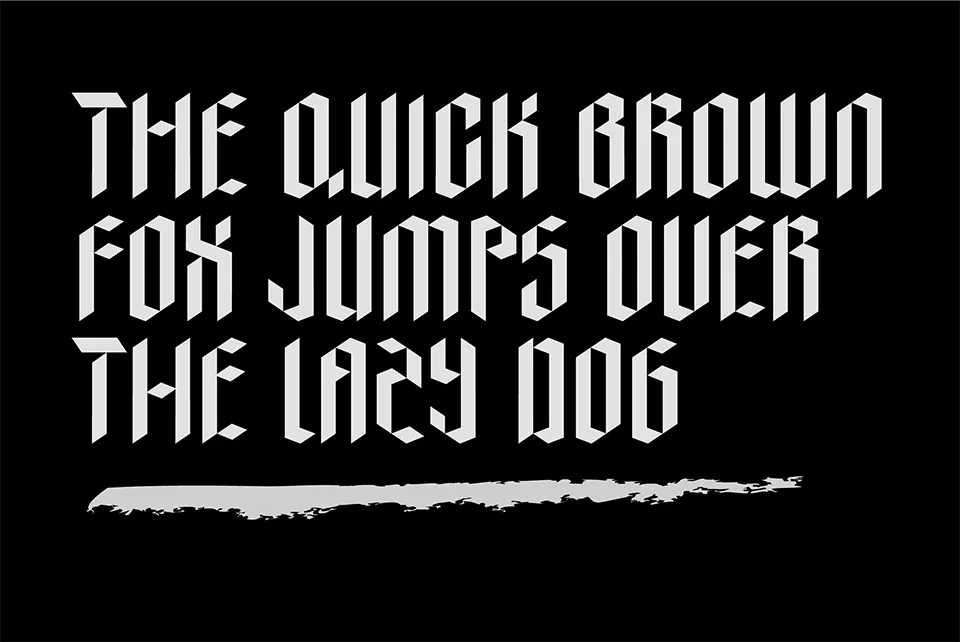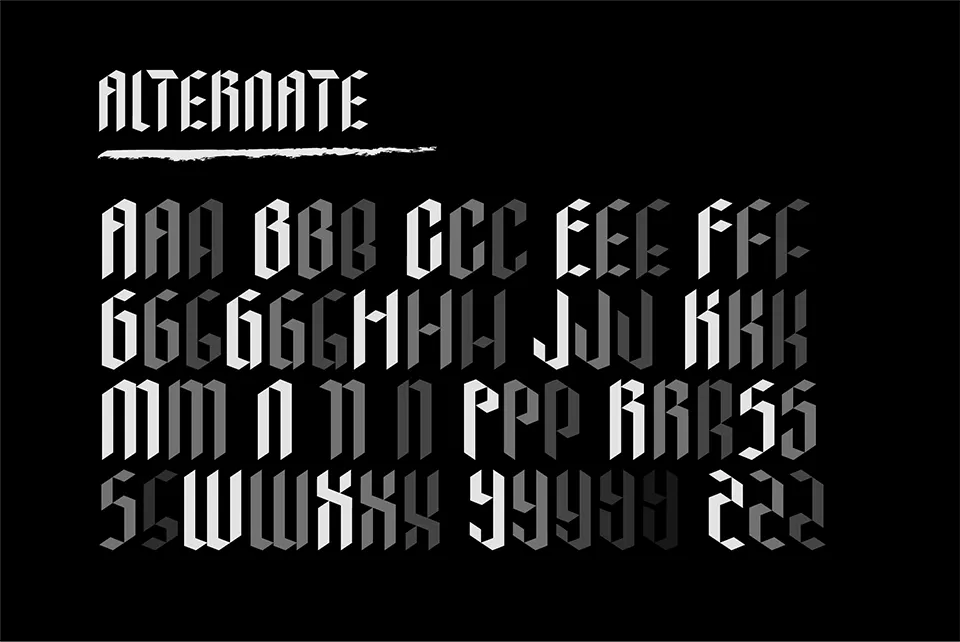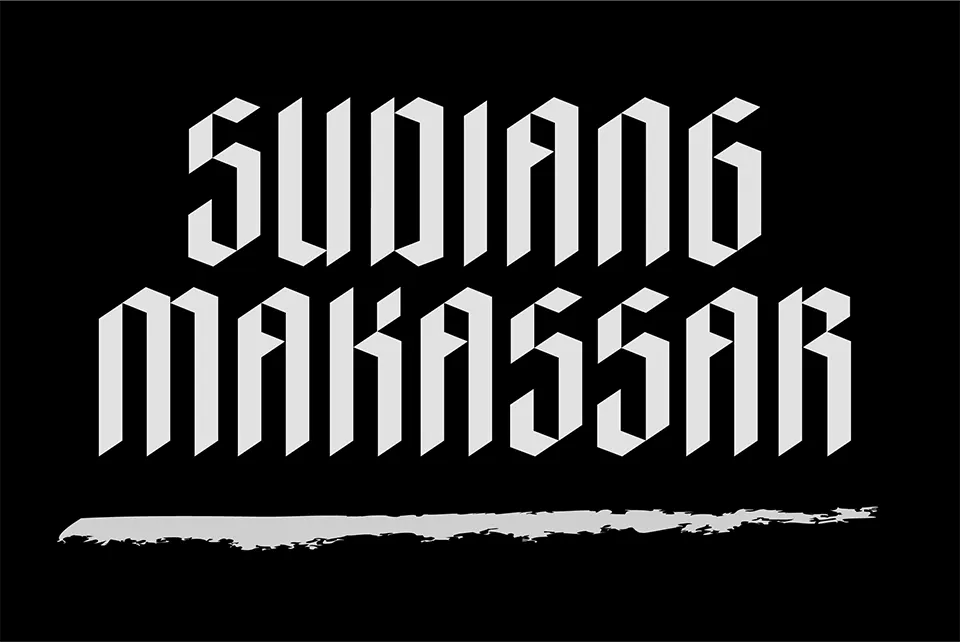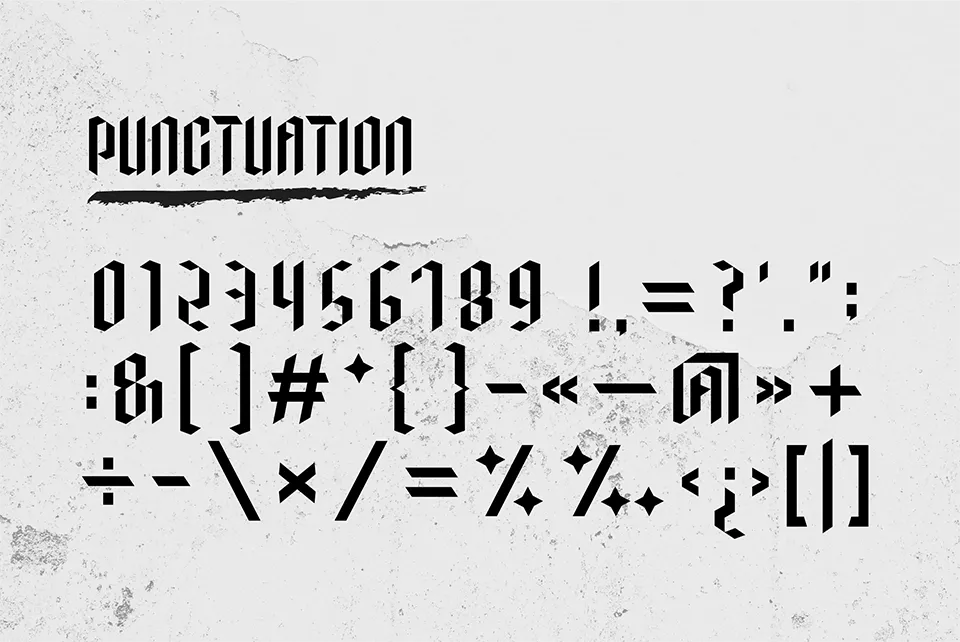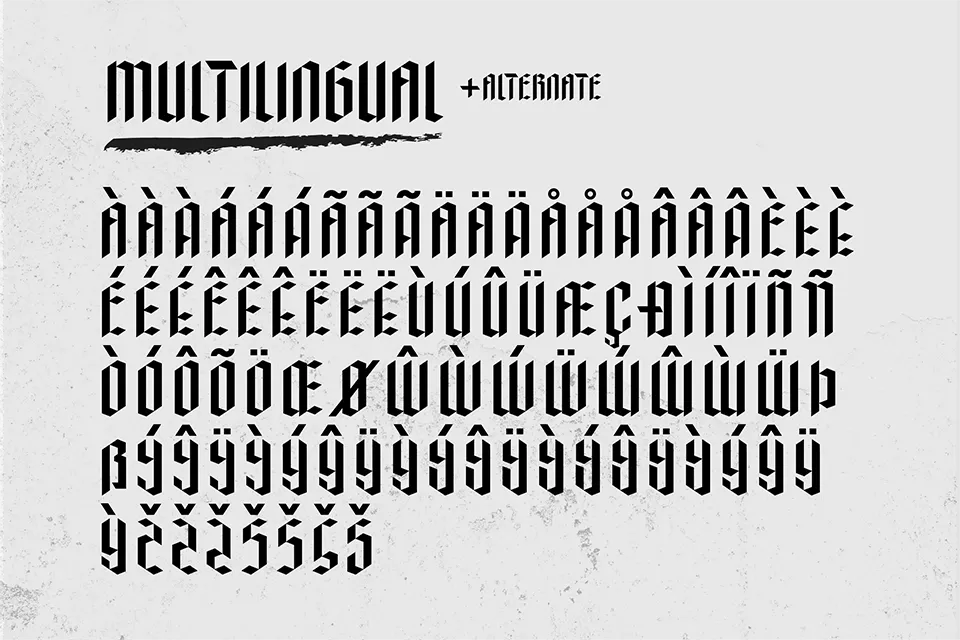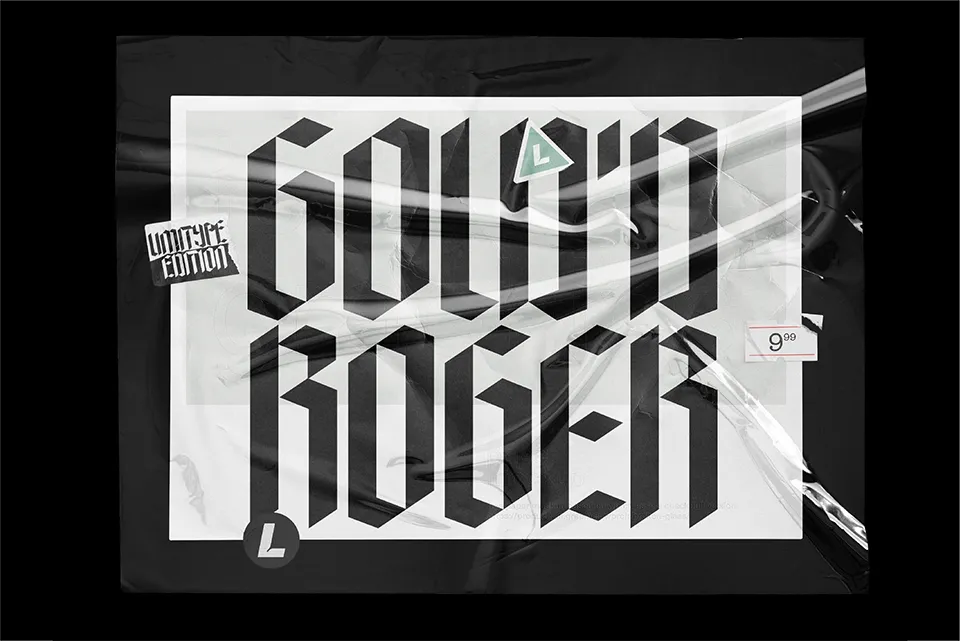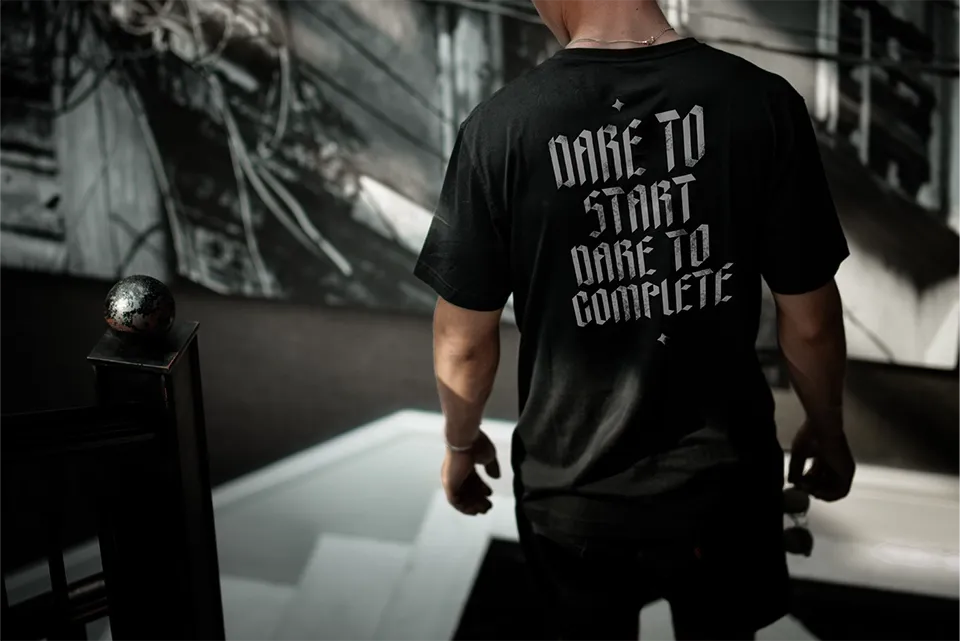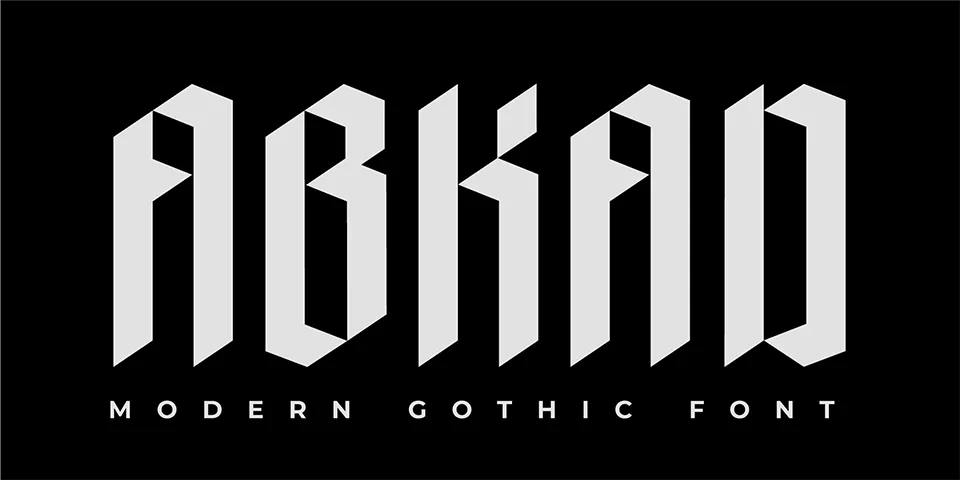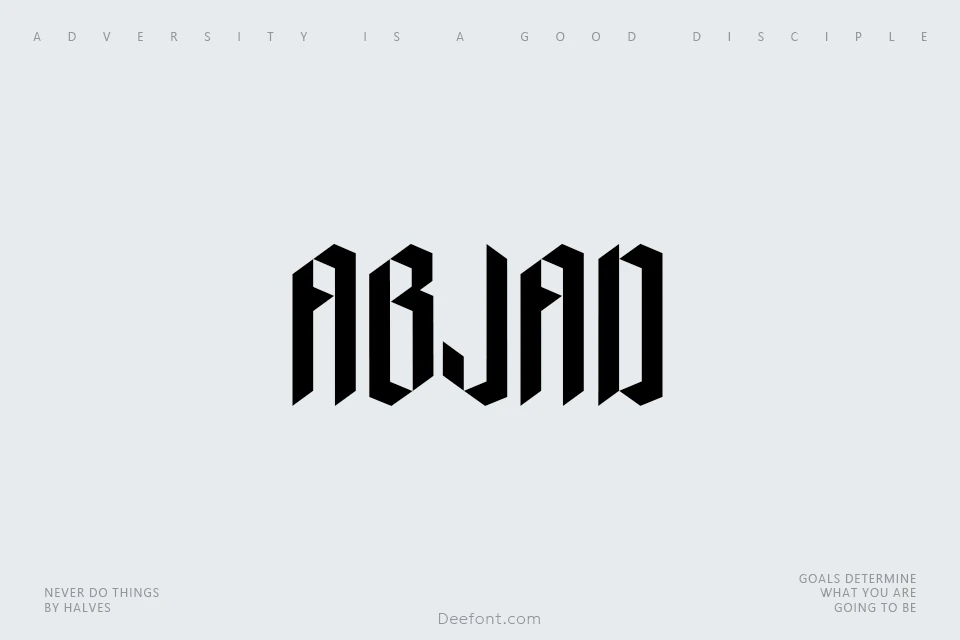
Abjad Font
Abjad Font is a striking modern gothic typeface that combines bold geometric shapes with sharp, angular details. Inspired by traditional blackletter styles, it offers a contemporary twist, making it ideal for designs that demand a strong and edgy aesthetic. The font’s clean lines and symmetrical structure create a sense of balance while maintaining its dramatic visual impact. Perfect for branding, posters, logos, or headlines, Abjad Font delivers a powerful presence that captures attention instantly. Its unique design bridges the gap between classic gothic influences and modern typography, making it versatile for creative projects seeking sophistication and boldness.